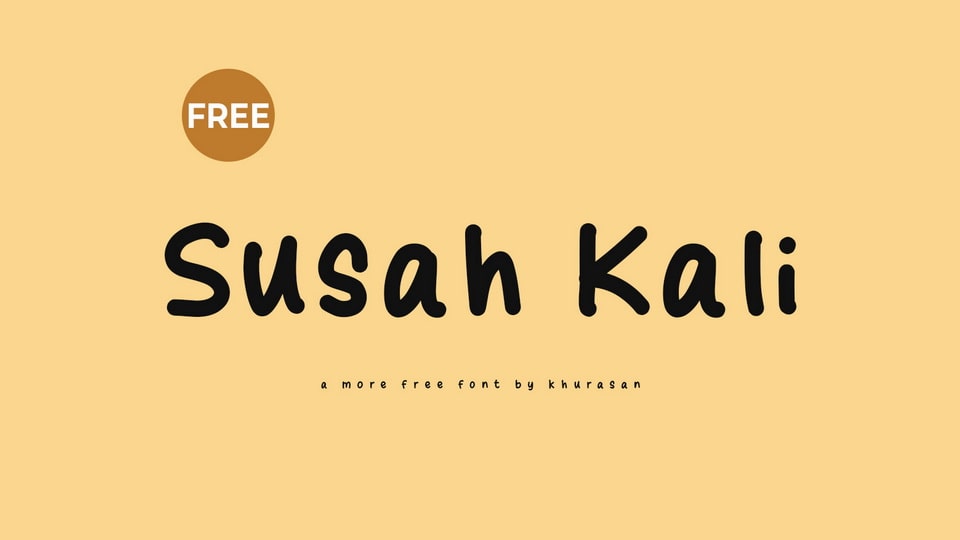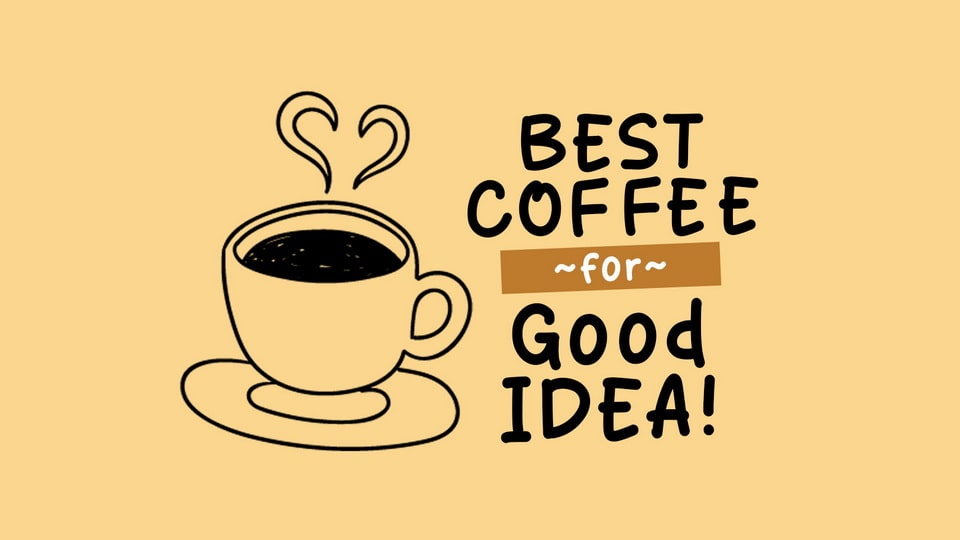
Susah Kali is a simple and natural hand-drawn comic font that captures the essence of playful creativity. It features relaxed, freeform letterforms with organic curves and charming imperfections, evoking the look of casual, hand-sketched text. Perfect for comic books, children’s stories, playful branding, and lighthearted social media graphics, this font brings a sense of fun and spontaneity to your text.
Susah Kali font is crafted to maintain a natural, hand-drawn feel, ensuring your designs convey warmth and approachability. Its simplicity and ease of readability make it ideal for a wide range of projects, from humorous dialogue to cheerful invitations.